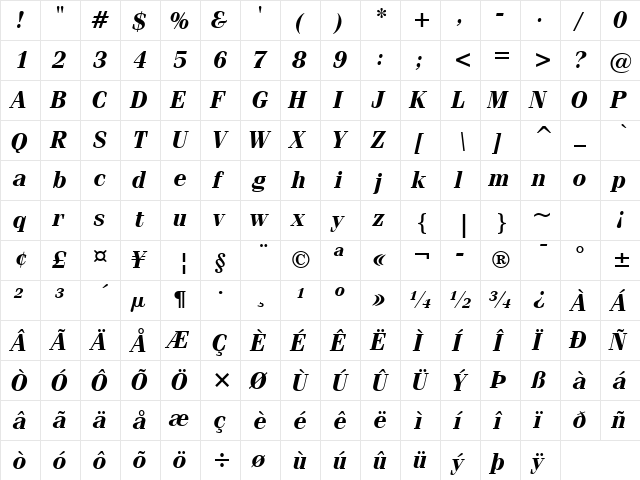
Fenice BT Bold Italic Font Preview
Fenice BT Bold Italic
Design Context for Fenice BT Typeface
Fenice BT is a composed and adaptable typeface that performs quietly and consistently across a wide range of design contexts. The slanted form adds forward momentum and visual energy. The heavy weight commands attention and anchors typographic hierarchies.